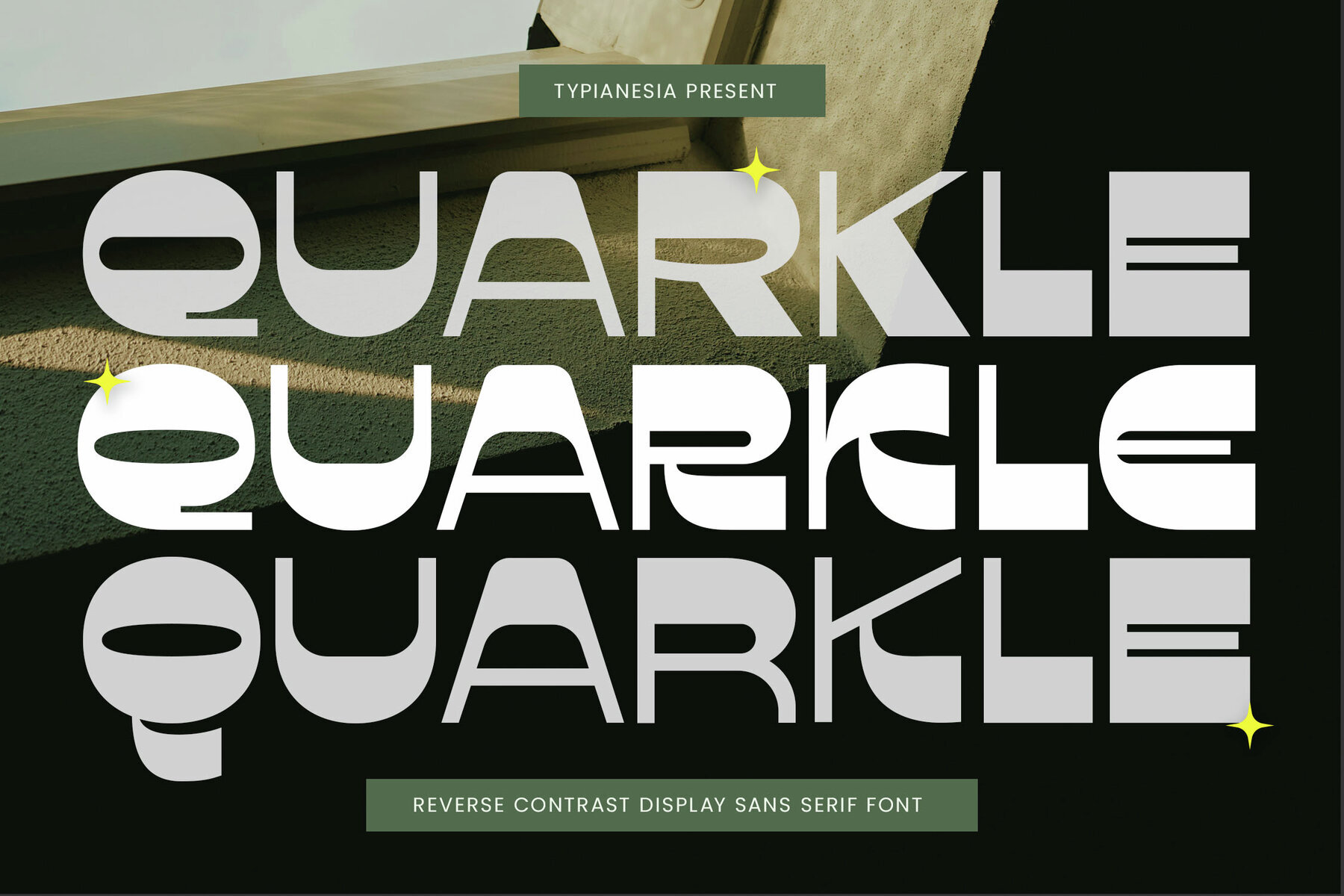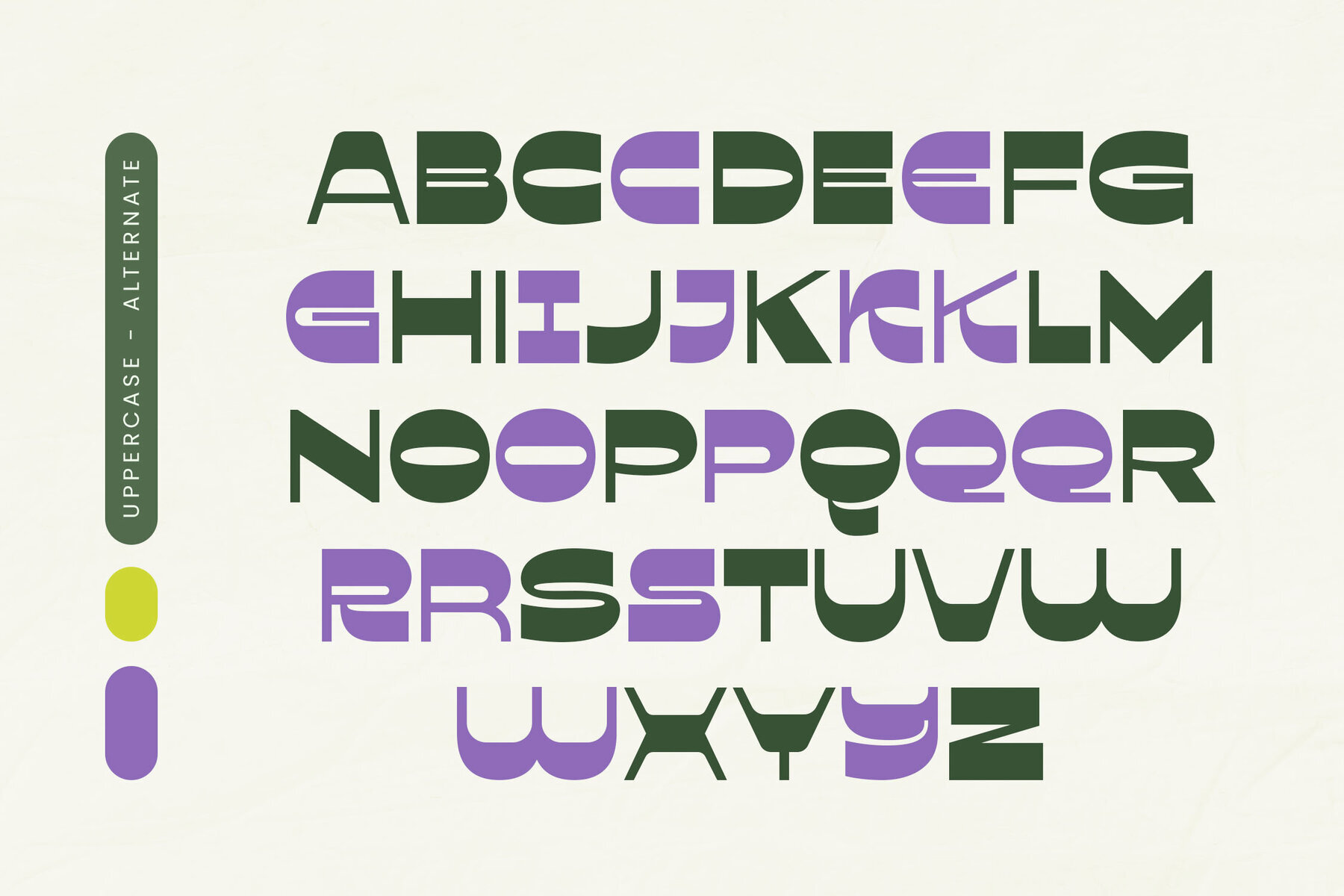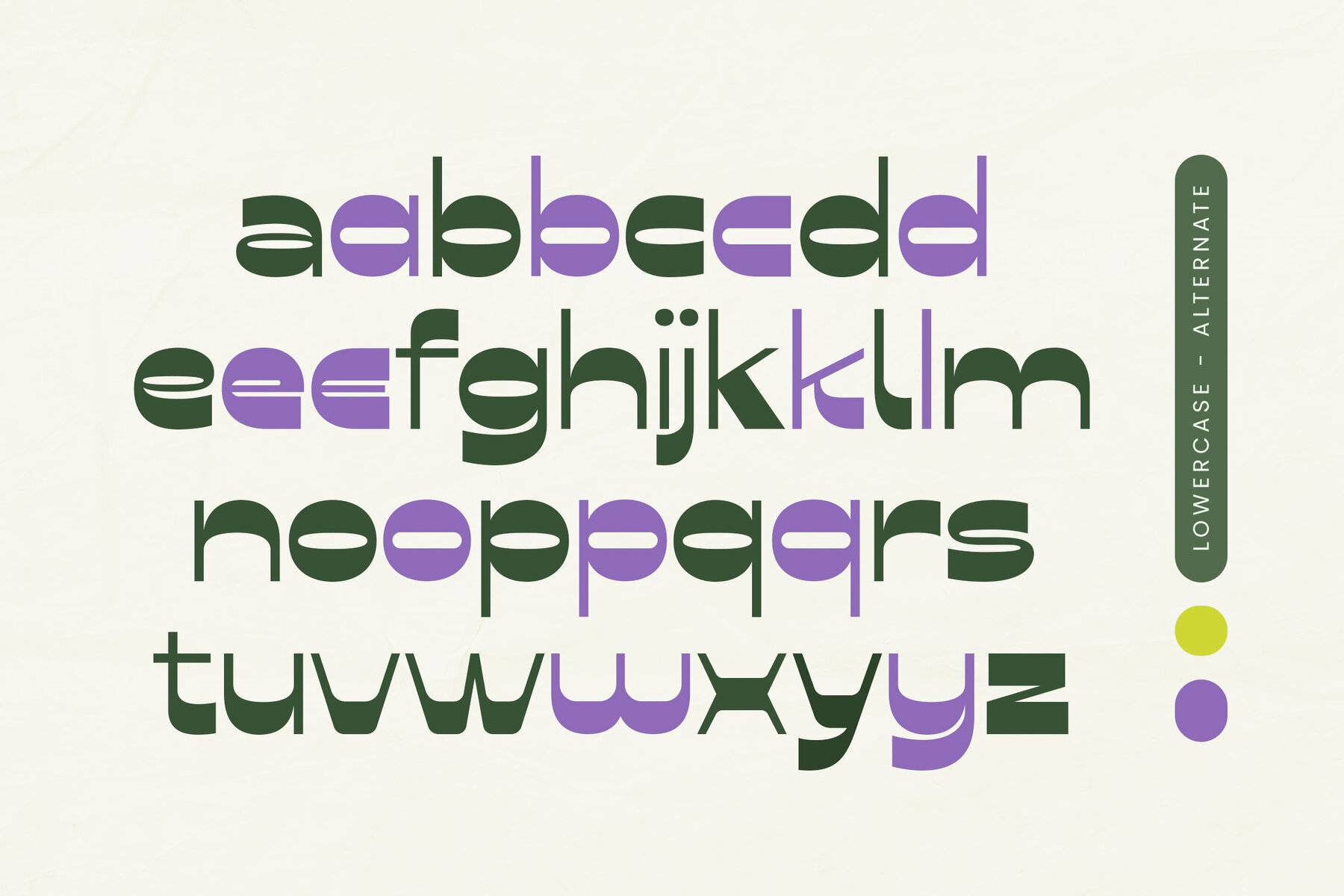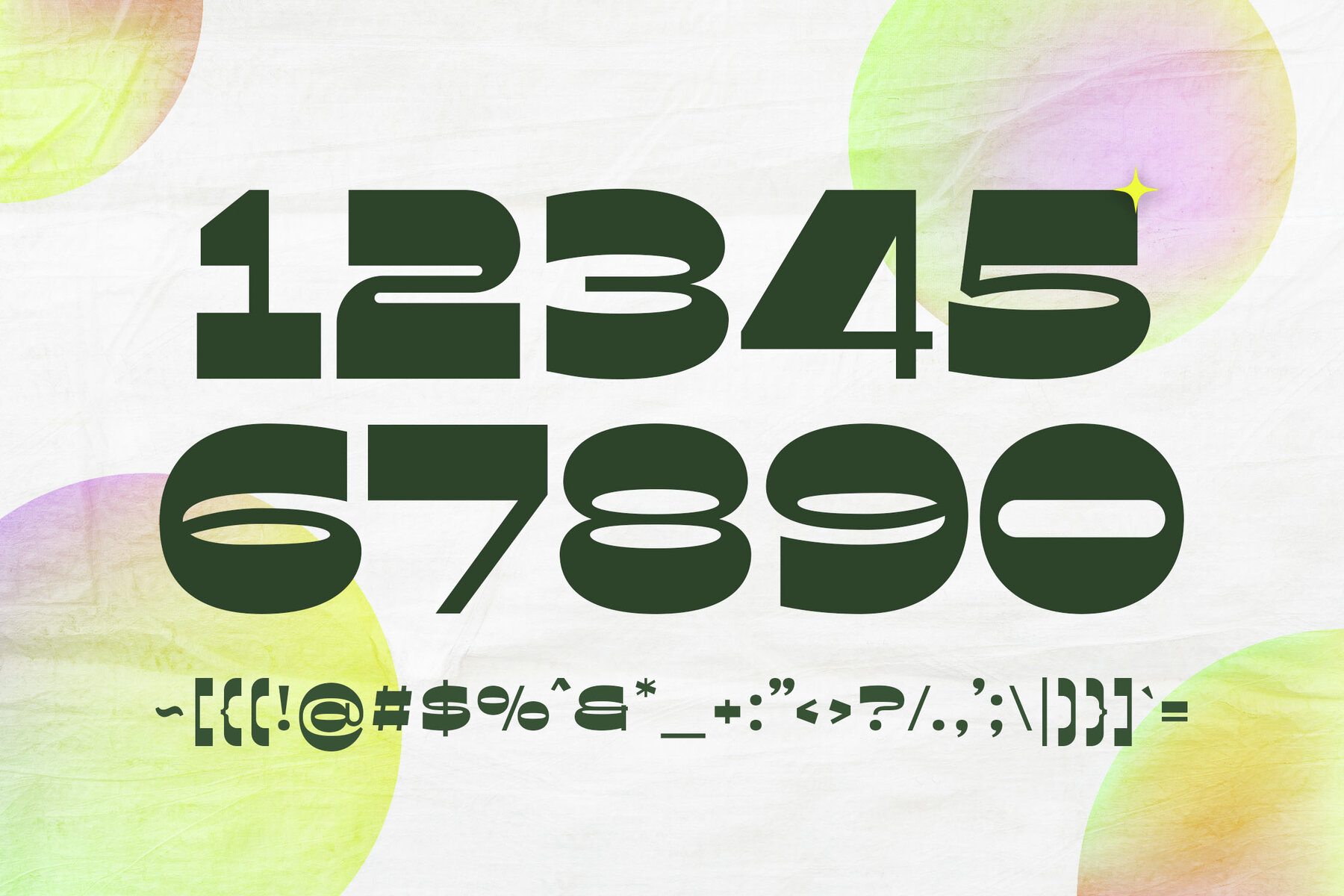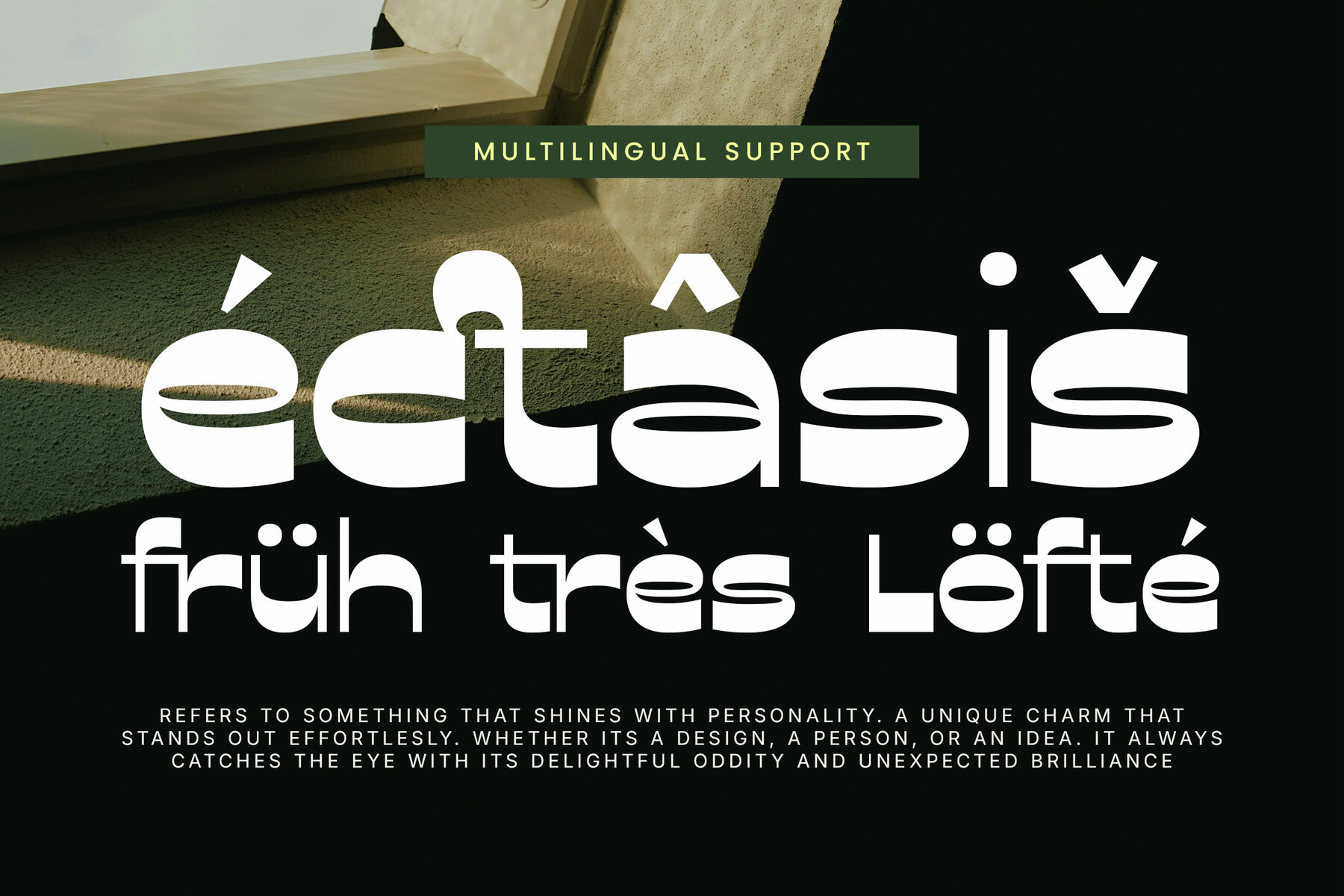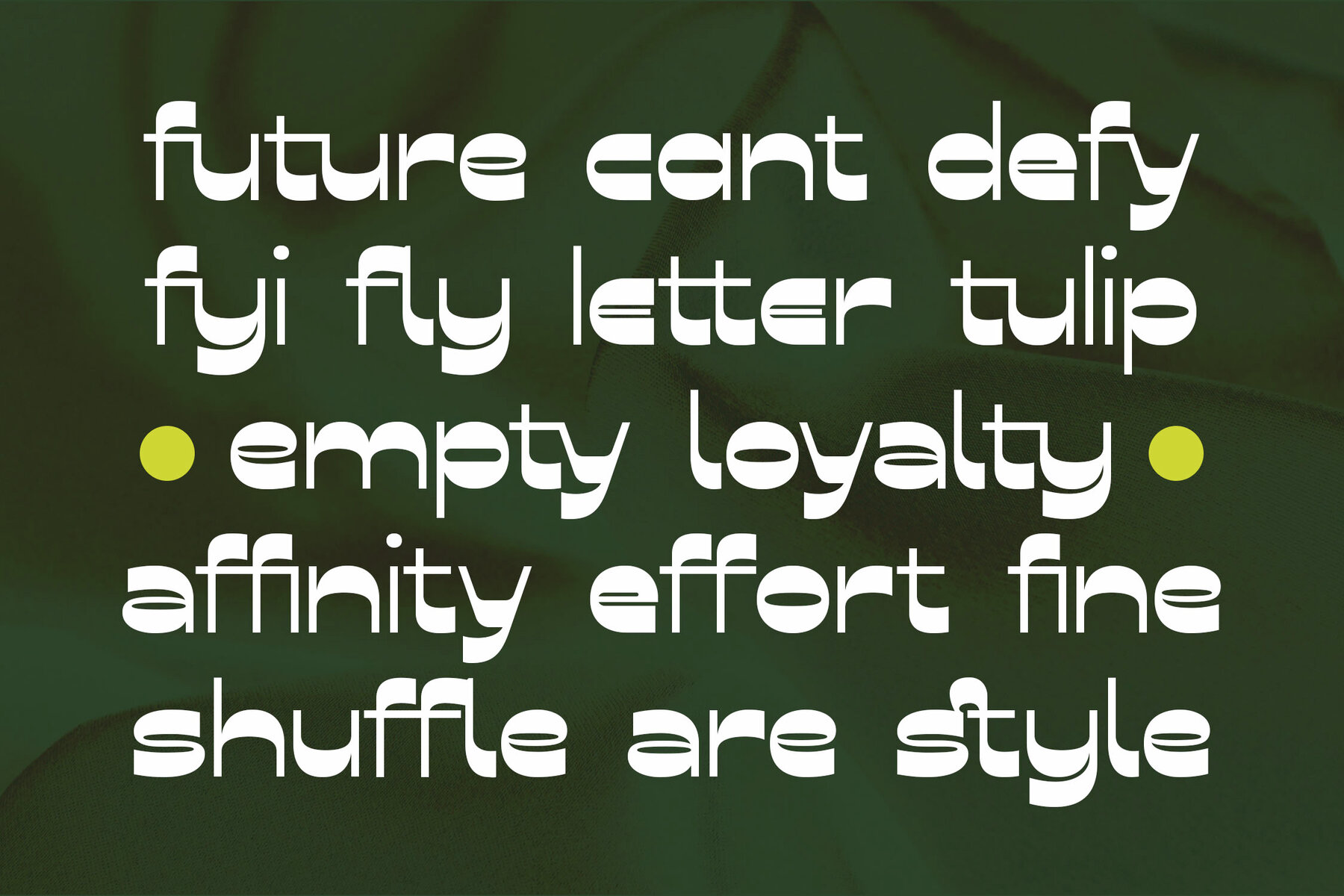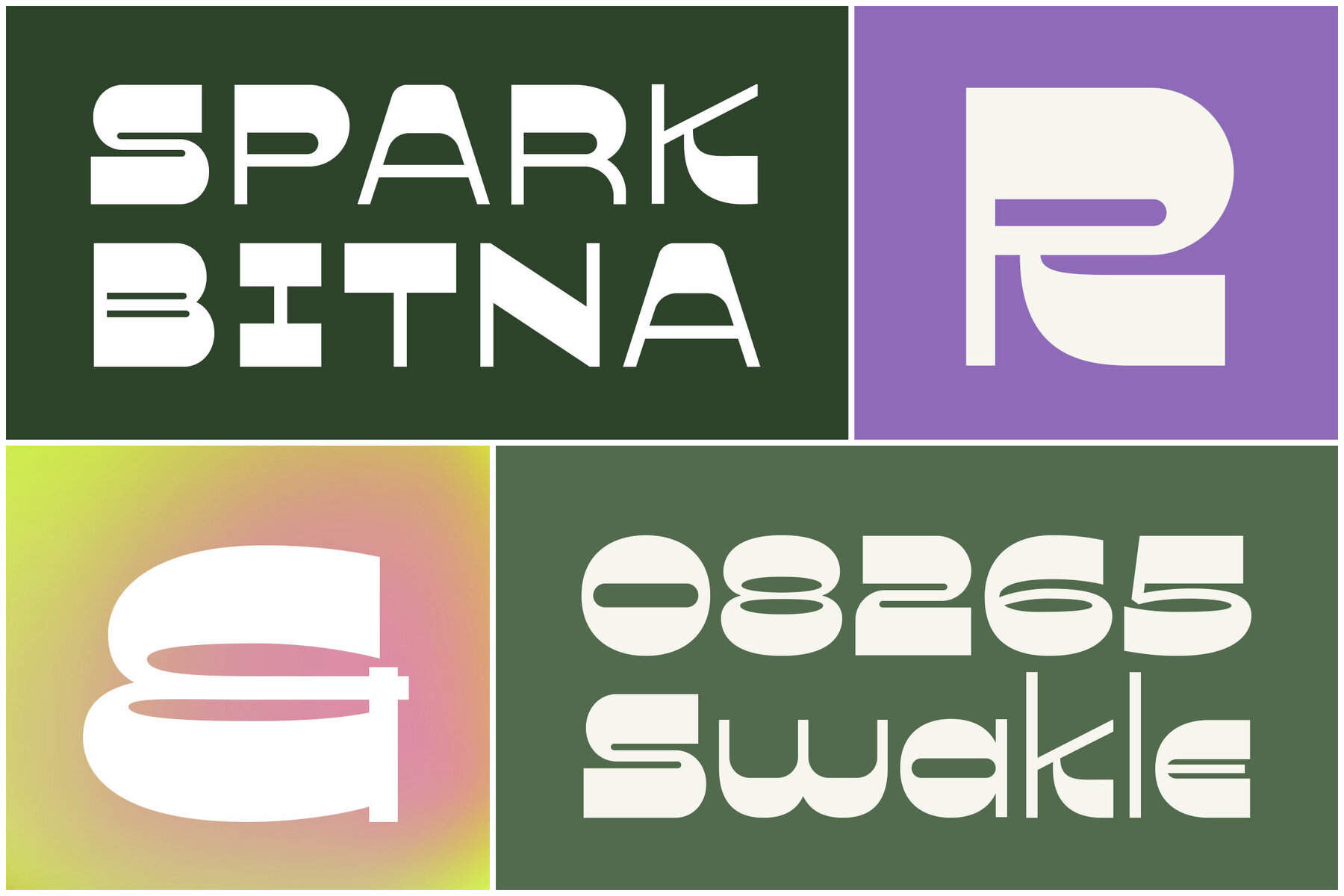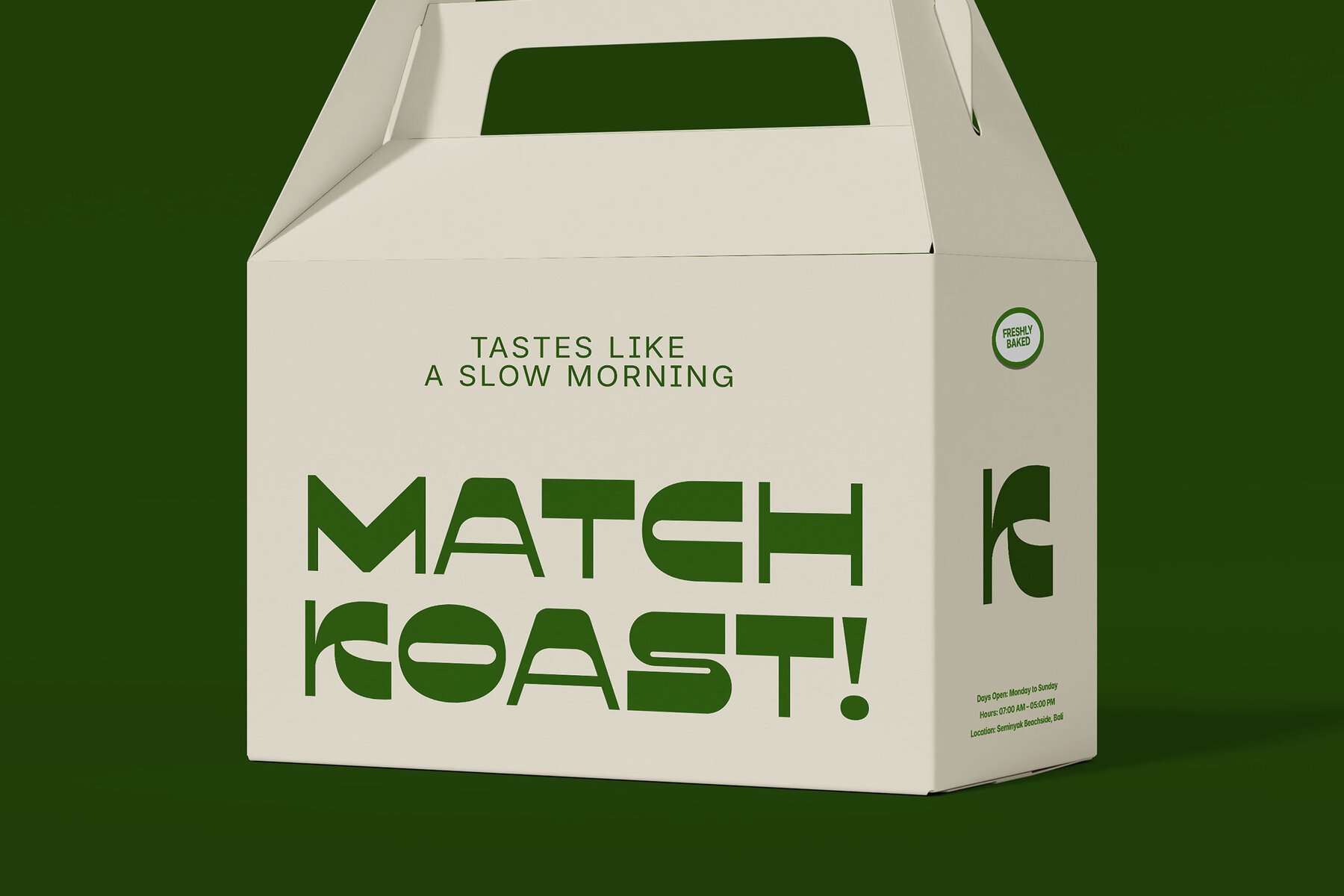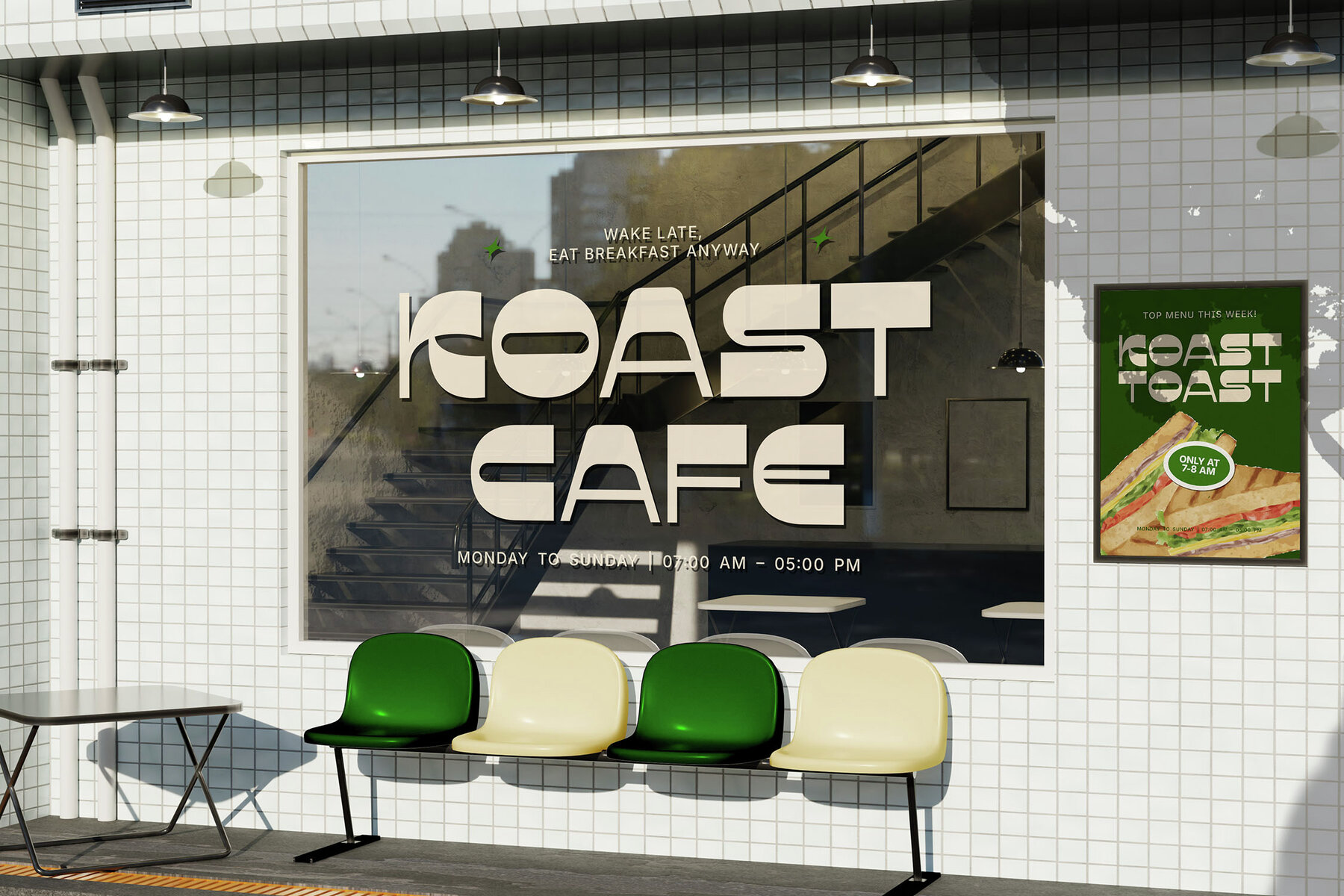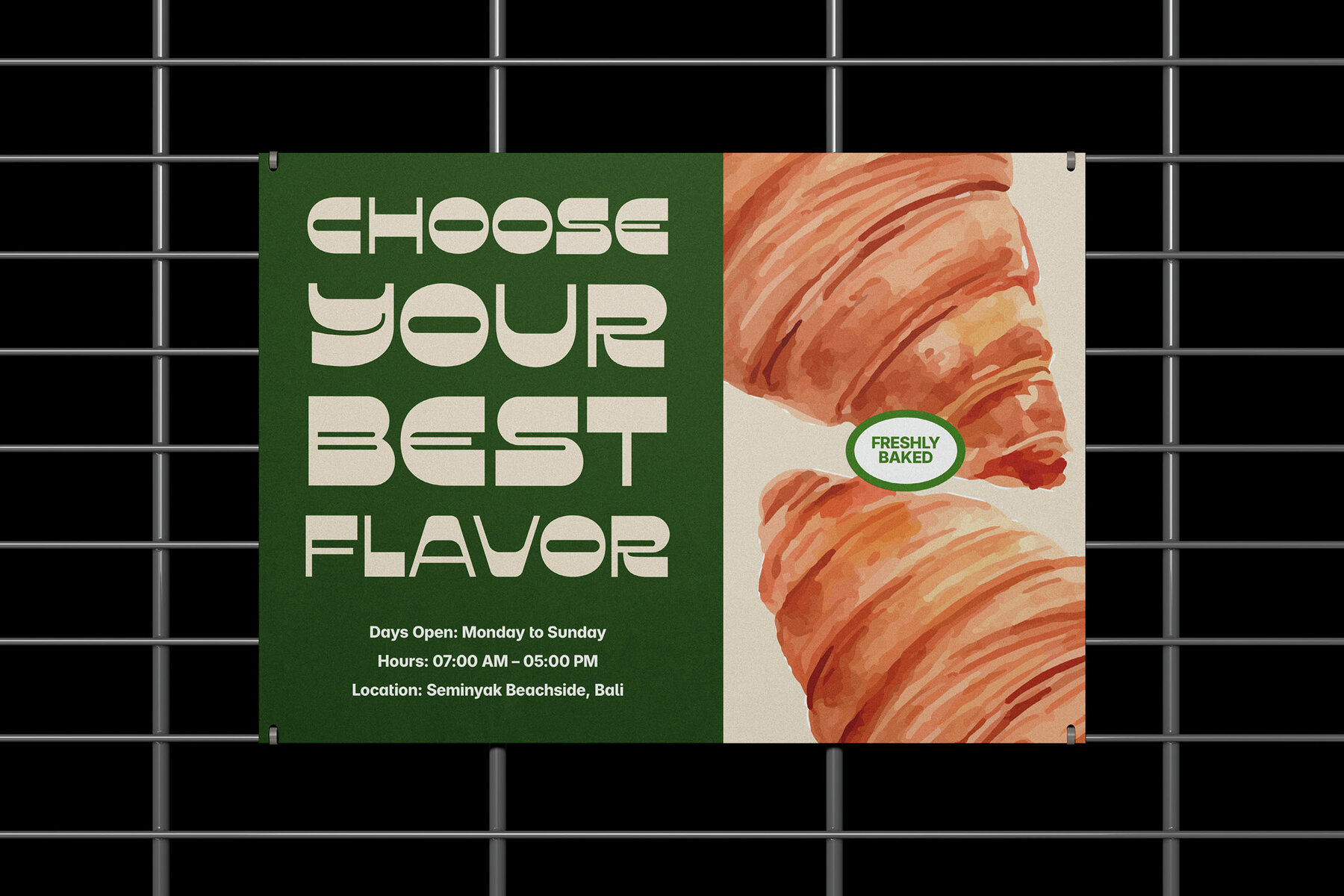
Quarkle Font
Quarkle Regular
Quarkle is a striking display sans-serif font with an intriguing reverse contrast that sets it apart. Perfect for product branding, food and beverage packaging, advertising headlines, posters, signage, web design, and logotypes, Quarkle makes a bold statement. This font is crafted for projects that need a distinctive and eye-catching look. Add a touch of modern flair to your designs with Quarkle. Its exceptional style and character will ensure your projects truly stand out.Quarkle: Modern Reverse Contrast Font